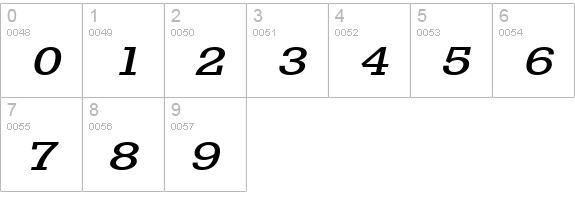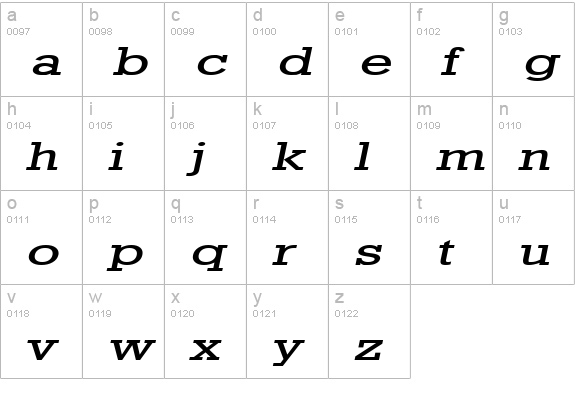
Geo 986 Extended Italic is a distinctive, extended-width, italic variant in the Geo typeface family \xE2\x80\x94 well suited to design and typography projects.
Introducing Geo 986 Extended Italic font - a sleek and modern typeface designed to make a lasting impression. The extended italic style adds a touch of sophistication and elegance to any design project. Whether you're creating a website, a logo, or a print publication, Geo 986 Extended Italic is sure to stand out and elevate your work to the next level. What's even better is that Geo 986 Extended Italic is completely free to download! You can easily access this stunning font at FontsMarket.com and start using it in your projects right away. Don't miss out on the opportunity to enhance your designs with this beautiful and versatile typeface. Download Geo 986 Extended Italic today and let your creativity shine!